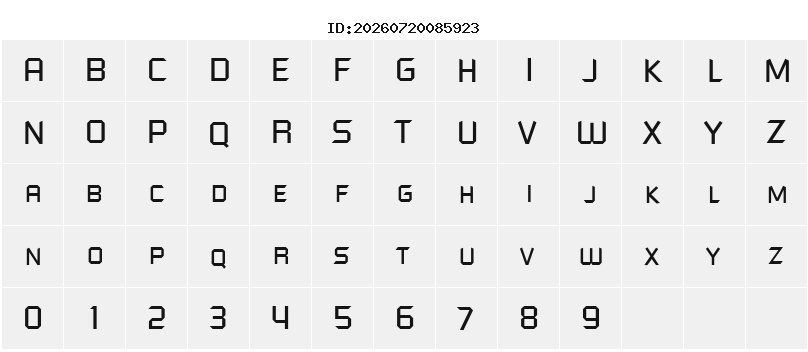
Futured Preview
• Font Name: Futured
• Font Style: Modern
About Futured.ttf
Futured.ttf is a modern, elegant sans-serif font designed for ultimate readability and visual harmony. Perfect for branding, headlines, web design, and print materials.